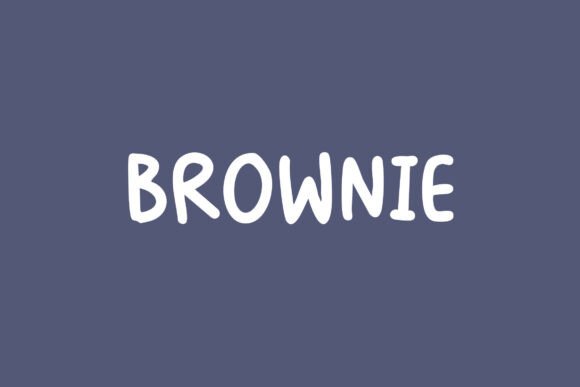
The Sweet Spot: How Brownie Font Became My Go-To for Playful Designs
I still remember the design project that led me to discover the Brownie Font 🌸. I was working on a branding project for a children’s bakery, and I needed a font that was both playful and readable. I’d spent hours scrolling through font libraries, but nothing seemed quite right. That was when I stumbled upon Brownie – a delightful, handwritten font that instantly captured the whimsical spirit of the brand.
So, what makes Brownie so special? Here are a few things I love about this font:
- ✨ Soft curves and cheerful style: Brownie has a warm, inviting feel that’s perfect for designs that need a personal touch.
- ✅ Lighthearted and readable: The font is easy to read, even at smaller sizes, making it ideal for body text or captions.
- 🎉 Full of personality: Brownie adds a playful charm to any design, from branding and packaging to social media graphics and invitations.
Of course, no font is perfect, and Brownie has a few quirks to consider:
- 🤔 Limited formal applications: Brownie’s playful style might not be the best fit for formal or corporate designs.
- ⚠️ Some letter spacing issues: Depending on the word or phrase, you might need to adjust letter spacing for optimal readability.
The Story Behind Brownie: Designer Inspiration
While the true origins of Brownie Font remain a mystery, it’s easy to imagine a designer inspired by childhood memories of baking and sweet treats. Perhaps the designer wanted to create a font that captured the whimsy and playfulness of childhood, with soft curves and cheerful lines that evoke a sense of joy.
Q: What type of projects is Brownie Font best suited for?
Brownie Font is perfect for creative projects that require a playful touch, such as branding, kids’ projects, invitations, packaging, and social media graphics.